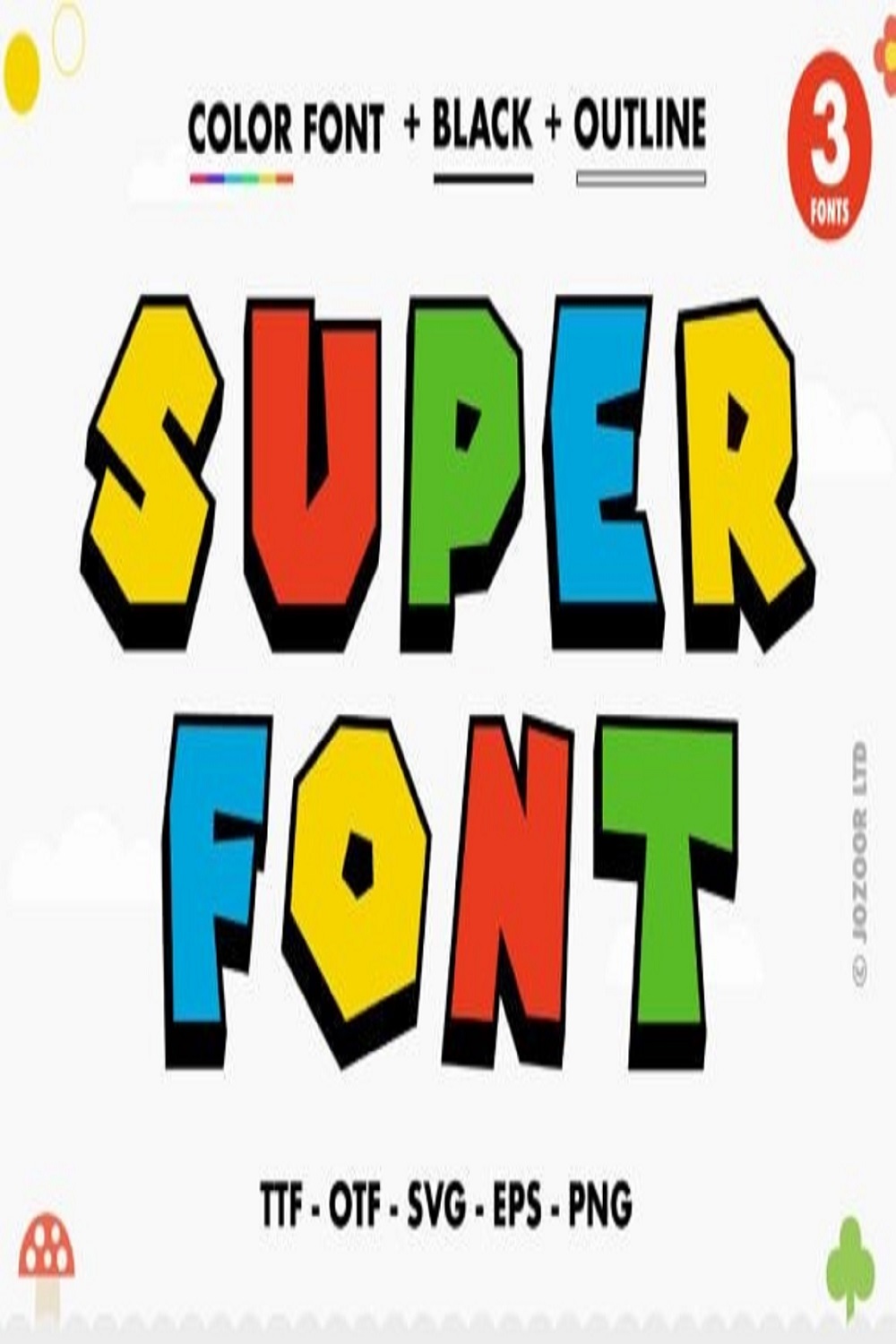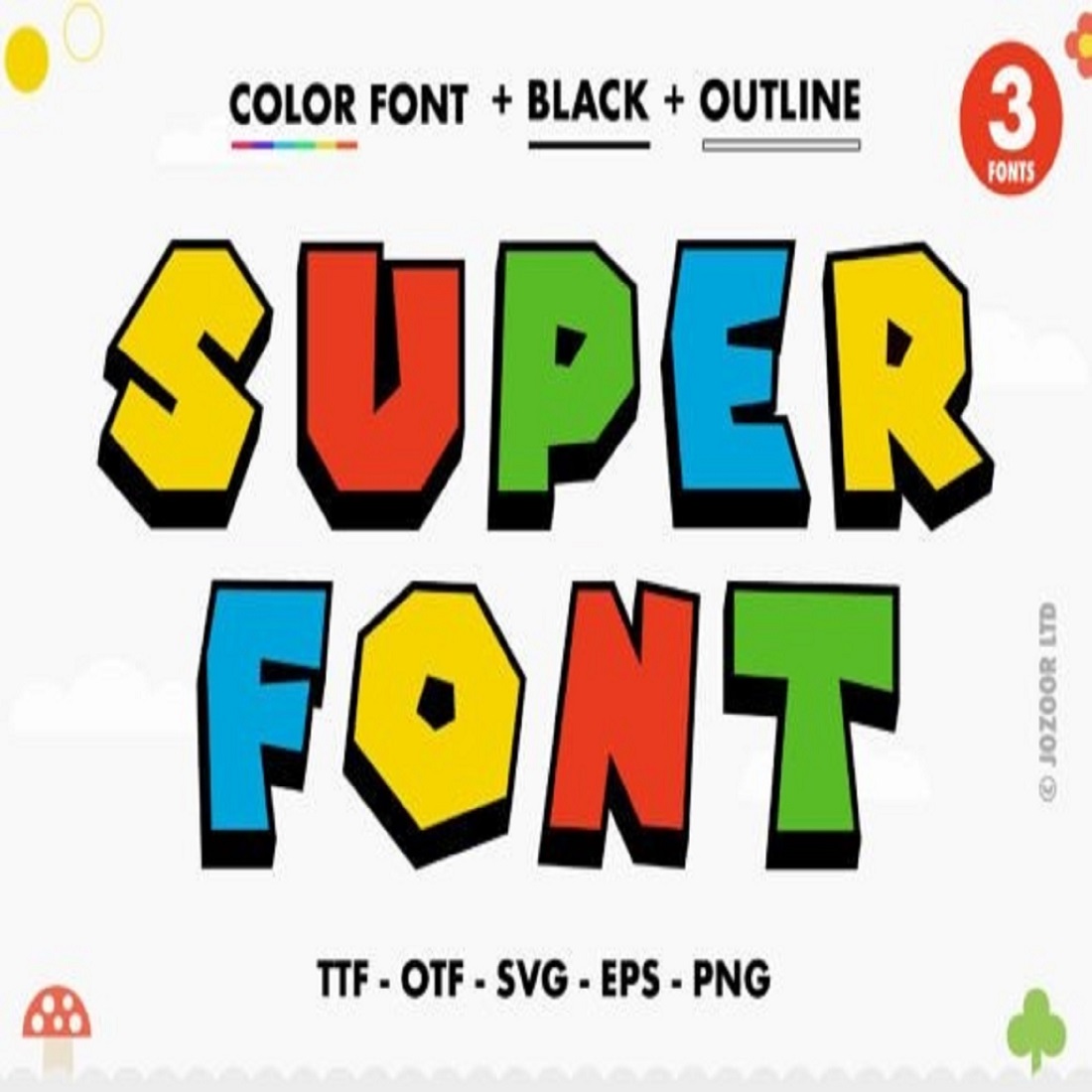
Super is a cool, thick lettered and fun color font. It is PUA encoded which means you can access all of the glyphs and swashes with ease! Add it confidently to your favorite creations and let yourself be amazed by the outcome generated